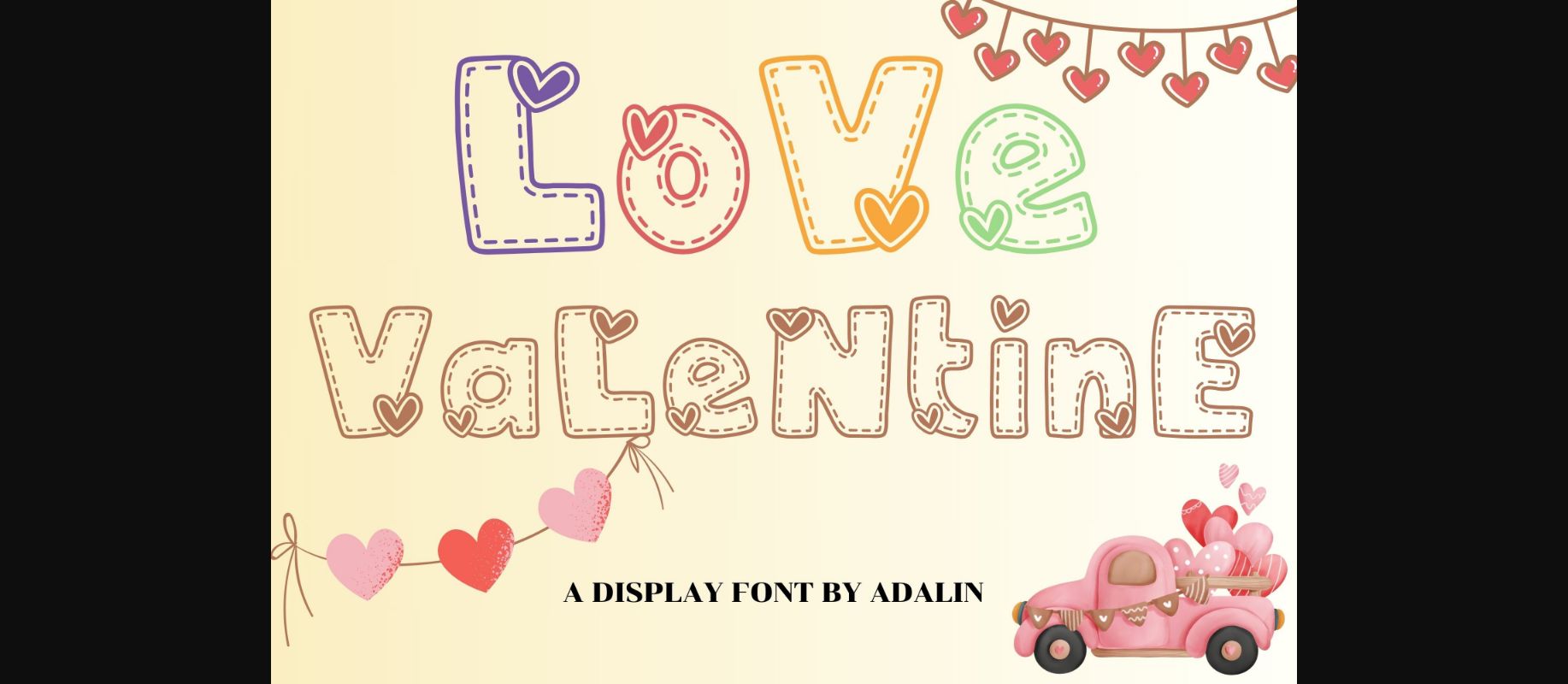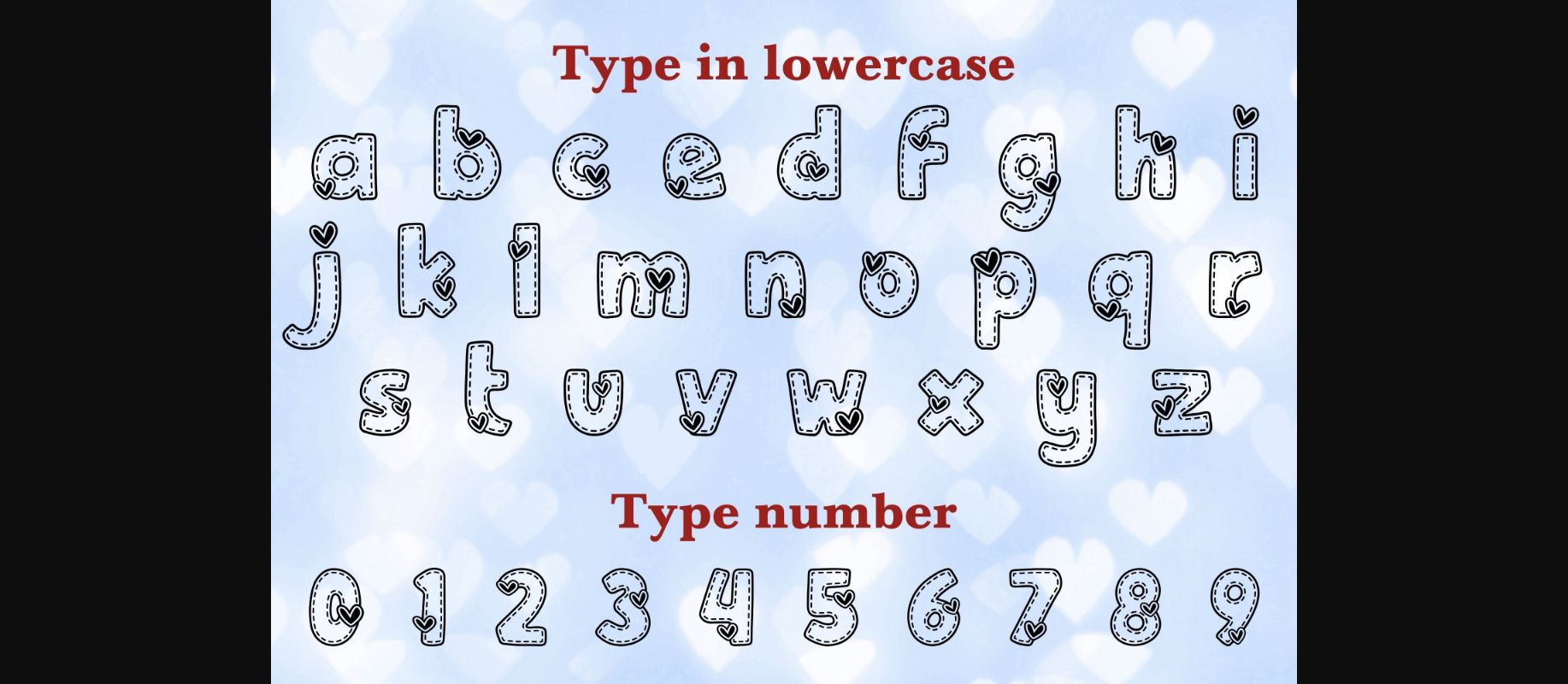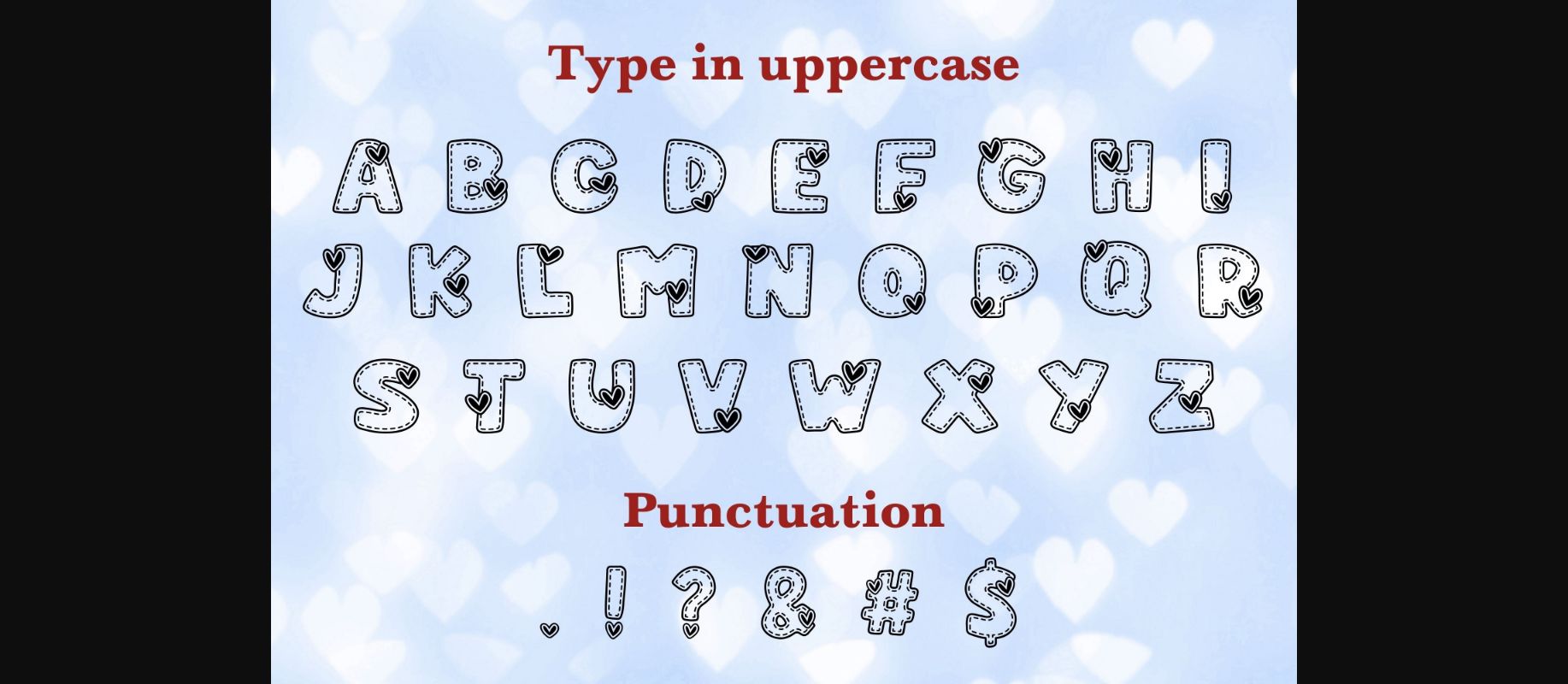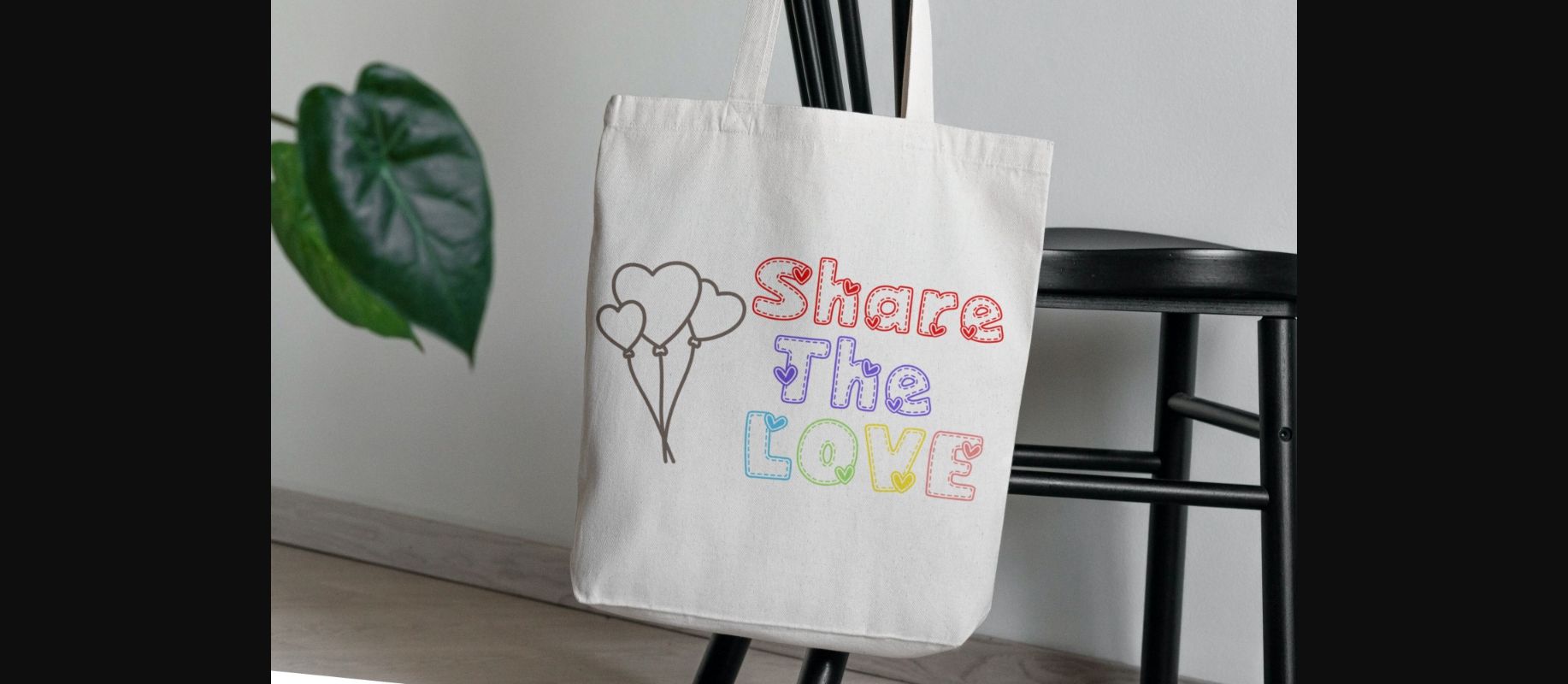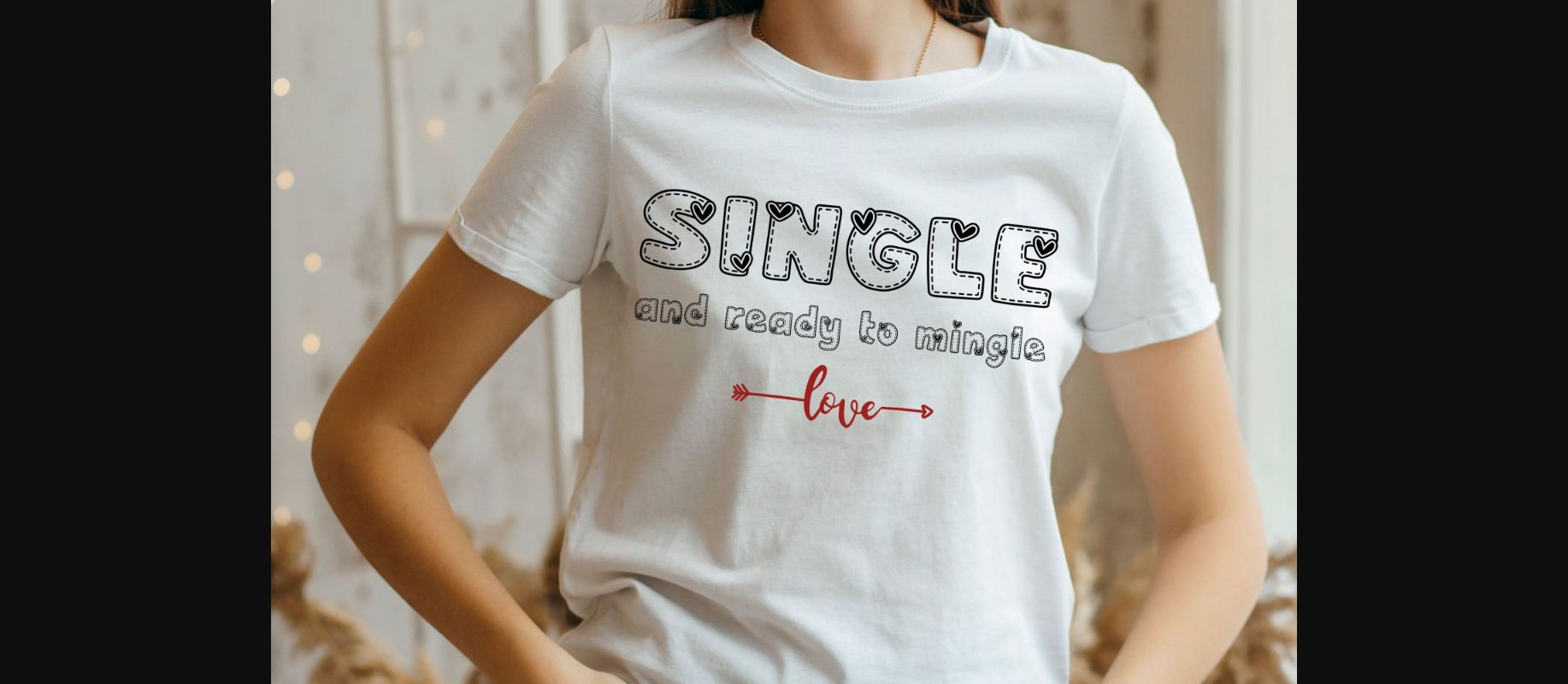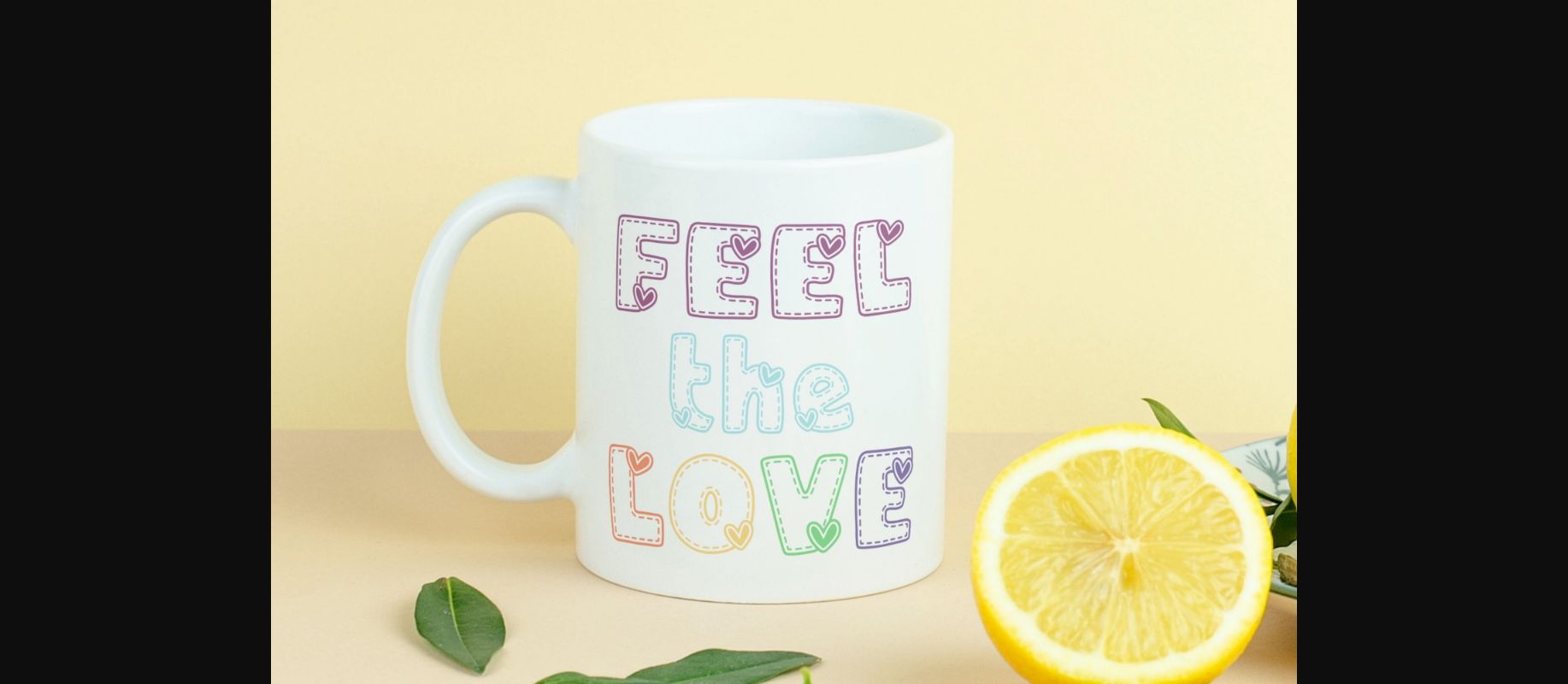
Love Valentine Font
About Love Valentine Font
Love Valentine is a cute decorative Valentine Font ideal for crafting, and perfect for designs that need a playful, cheery accent. Love Valentine is suitable for book covers, posters, packaging, merchandise, logotypes, and many more!